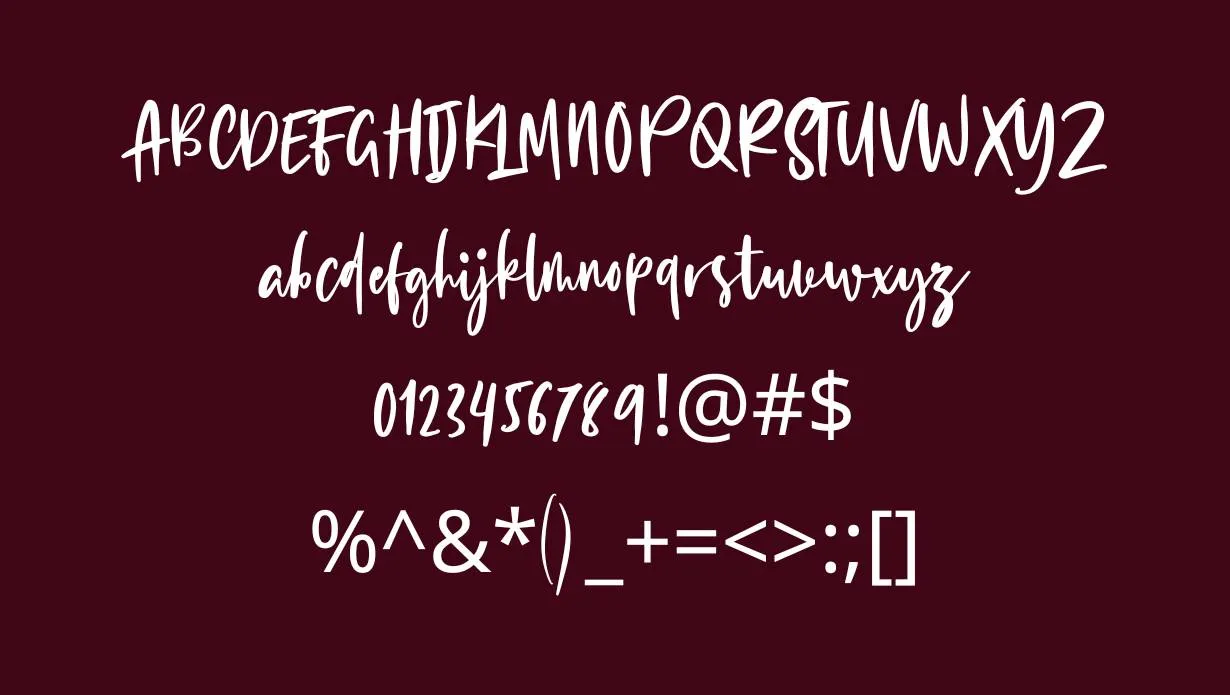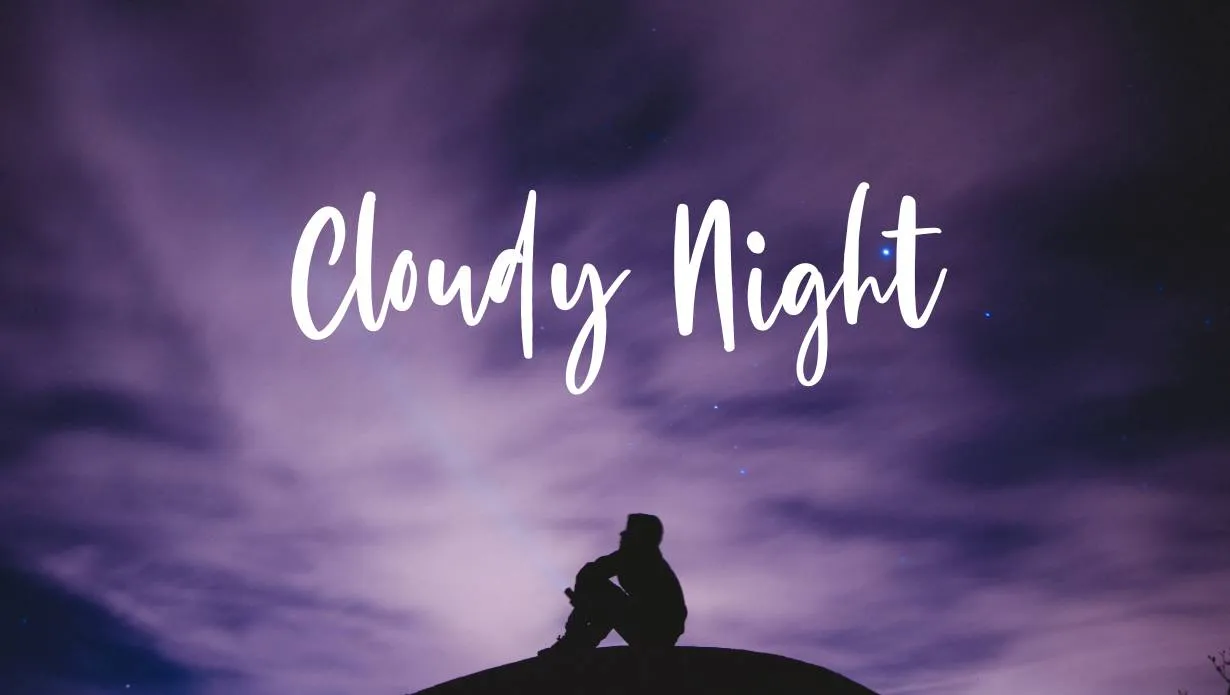
Cloudy Night Font Free Download
About Cloudy Night Font Free Download
Cloudy Night is a casual, handwritten script font with lively, flowing strokes that convey an organic and friendly feel. Its expressive character shapes make it suitable for creative and personal design projects such as invitations, posters, social media graphics, logos, and greeting cards. The font’s natural rhythm and slightly imperfect lines give designs a warm, handcrafted aesthetic. Cloudy Night blends legibility with artistic flair, making it a versatile choice for both digital and print use.